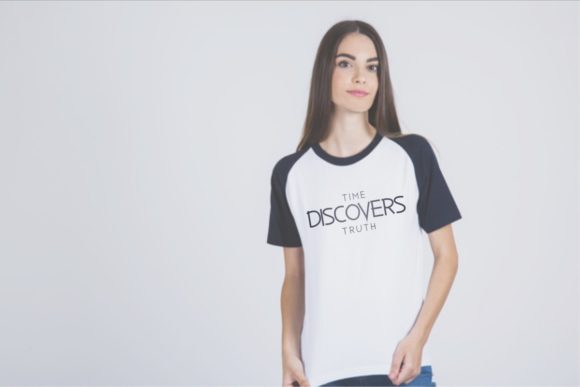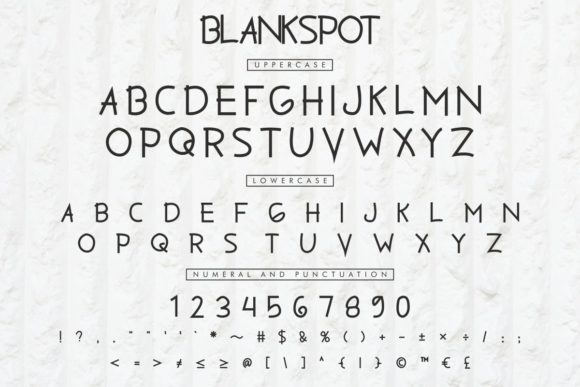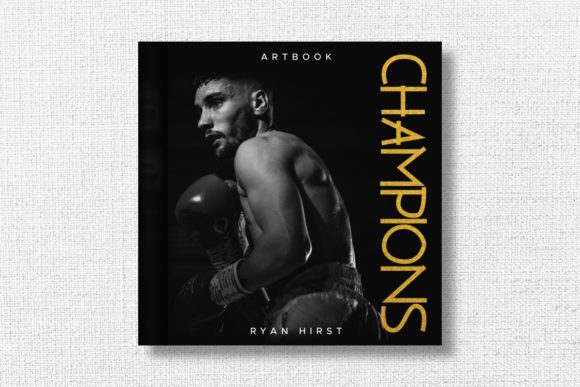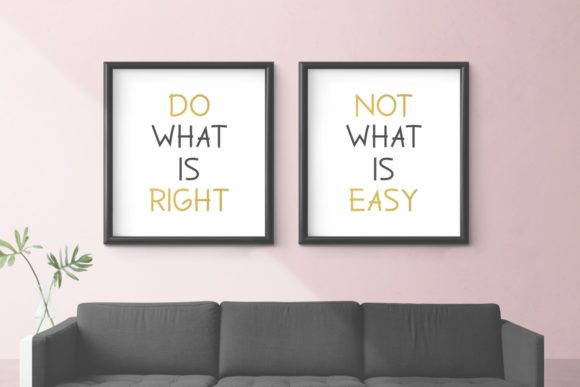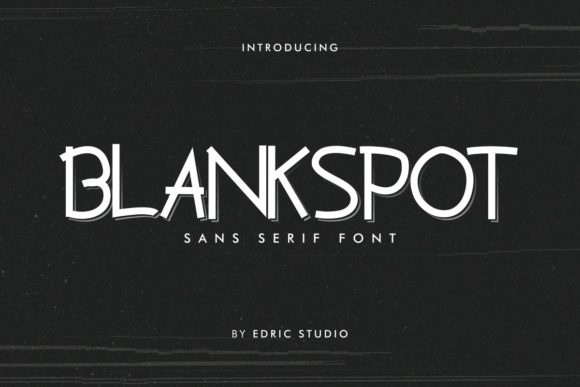
Introducing Blankspot Font: The Ultimate Clean and Casual Sans Serif
Are you tired of using overused fonts that lack personality? Look no further than Blankspot Font, a clean and casual sans serif font that’s perfect for designers and crafters looking to add a touch of modernity to their projects. With its versatility and wide range of applications, Blankspot Font is sure to become a staple in your font library.
What is Blankspot Font?
Blankspot Font is a carefully crafted sans serif font that’s designed to be clean, simple, and highly legible. Its minimalist aesthetic makes it an excellent choice for projects that require a professional and modern look. Whether you’re working on a logo, branding materials, website design, or social media graphics, Blankspot Font is the perfect choice.
Key Features of Blankspot Font
- Clean and Simple Design: Blankspot Font boasts a clean and simple design that’s free from unnecessary embellishments, making it easy to read and understand.
- Highly Legible: The font’s clear and concise letterforms ensure that your text is easily readable, even at small sizes.
- Versatile: Blankspot Font can be used in a wide range of projects, from digital designs to print materials.
- Easy to Pair: The font’s neutral design makes it easy to pair with other fonts, allowing you to create stunning font combinations.
Use Cases for Blankspot Font
Blankspot Font is incredibly versatile and can be used in a variety of projects, including:
- Logo Design: Create a modern and professional logo that stands out from the crowd.
- Branding Materials: Use Blankspot Font to create business cards, brochures, and other marketing materials that exude a sense of professionalism.
- Website Design: Add a touch of modernity to your website with Blankspot Font, perfect for headings, titles, and body text.
- Social Media Graphics: Create engaging social media graphics that grab attention and drive engagement.
- Crafting and DIY Projects: Use Blankspot Font to add a personal touch to your crafting and DIY projects, such as signs, labels, and cards.
Tips for Using Blankspot Font
To get the most out of Blankspot Font, here are some tips to keep in mind:
- Experiment with Font Sizes: Play around with different font sizes to create visual interest and hierarchy.
- Pair with Other Fonts: Don’t be afraid to pair Blankspot Font with other fonts to create unique and interesting combinations.
- Use Bold and Italic Styles: Use the bold and italic styles to add emphasis and create visual contrast.